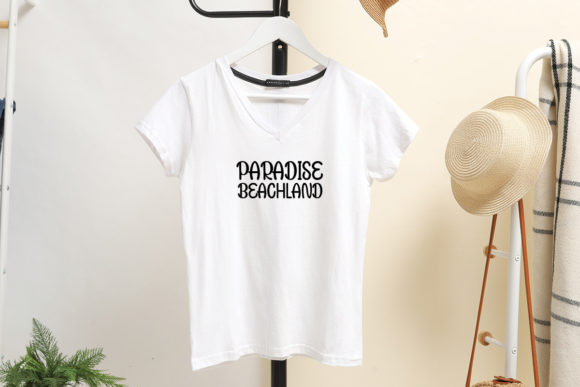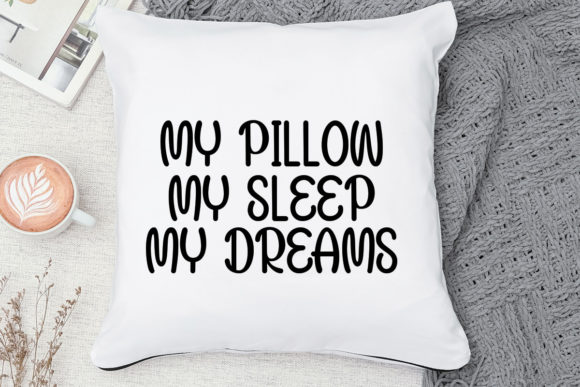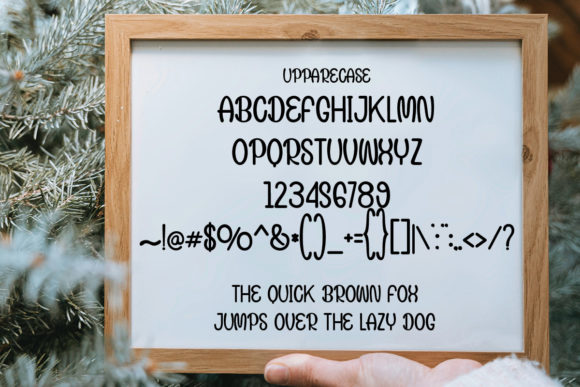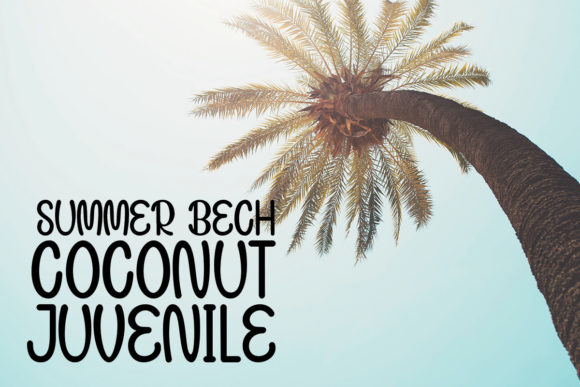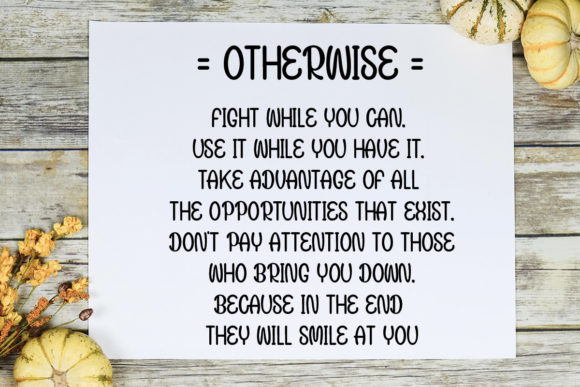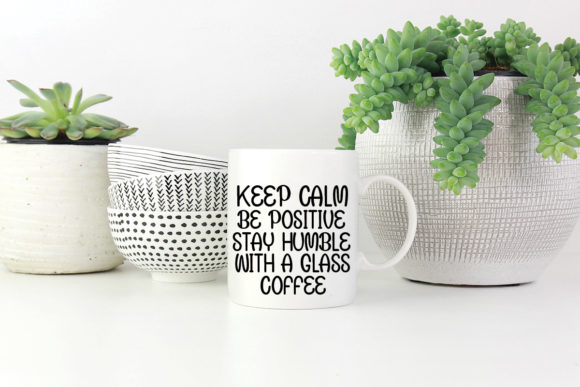
Introduction to Baked Donuts Font
As a designer, have you ever stared at a blank page, waiting for that perfect spark to ignite your next creative project? It’s a moment we’ve all experienced – the blank slate, the blank mind, and the blank page staring back at us. But what if we told you that the right design resource could be just a click away? Enter the Baked Donuts Font, a wavy and casual handwritten font that’s about to become your new best friend.
This free download is more than just a pretty face – it’s a versatile design tool that can elevate any project with its unique, handcrafted feel. Whether you’re working on a branding campaign, a blog post, or a social media graphic, the Baked Donuts Font is sure to bring a touch of warmth and personality to your design.
Key Features of Baked Donuts Font
- Unique, playful design perfect for creative projects and design resources
- Includes a wide range of characters and glyphs for versatility in design
- Designed to be highly legible at various font sizes, from small to large
- Perfect for use in digital design projects, including graphics, logos, and more
Honest Review: Baked Donuts Font
I recently stumbled upon the Baked Donuts Font and decided to give it a try for my latest creative project. I was looking for a high-quality design resource that would add a touch of whimsy to my illustrations.
- The font is highly customizable, allowing for a wide range of creative possibilities.
- The design is playful and visually appealing, perfect for adding a touch of fun to any project.
- The font may not be suitable for formal or professional designs, as it has a more casual tone.
Overall, I’m impressed with the Baked Donuts Font and would definitely recommend it for creative projects that require a fun and playful touch. With its high quality and versatility, it’s a great addition to any designer’s toolkit.
The Baked Donuts Font is ideal for:
- Food blogs and recipes
- Café and restaurant menus
- Event invitations and decorations